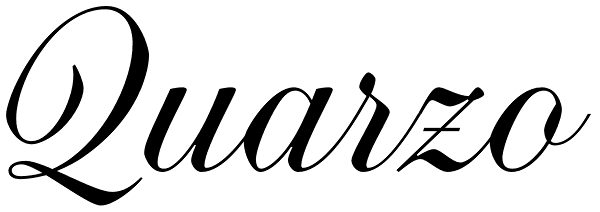
Quarzo
This script font is inspired by the flexible nib strokes to create a concatenation of refinement with character mixing the contrast with pronounced but rounded angles. This angles along with the inktraps give the font a better performance when...